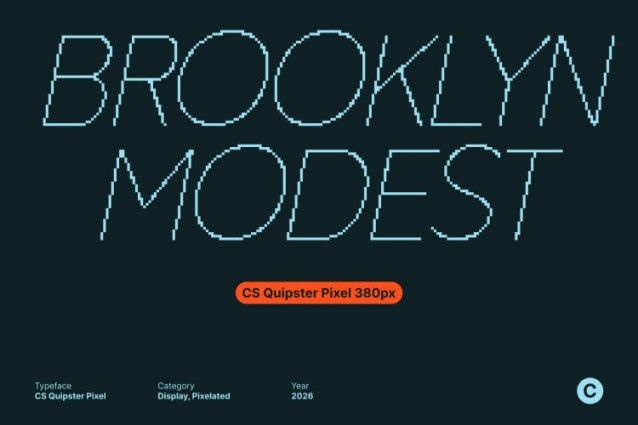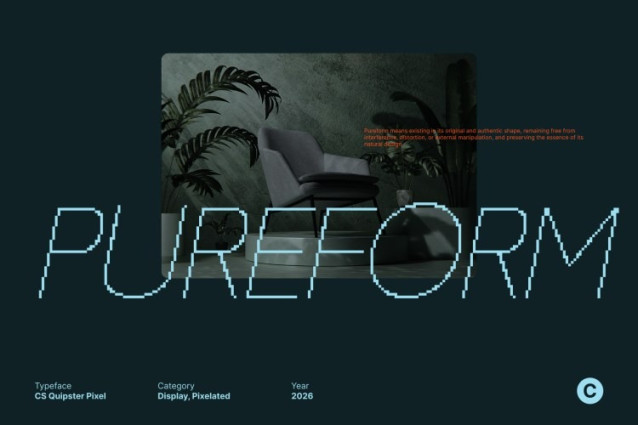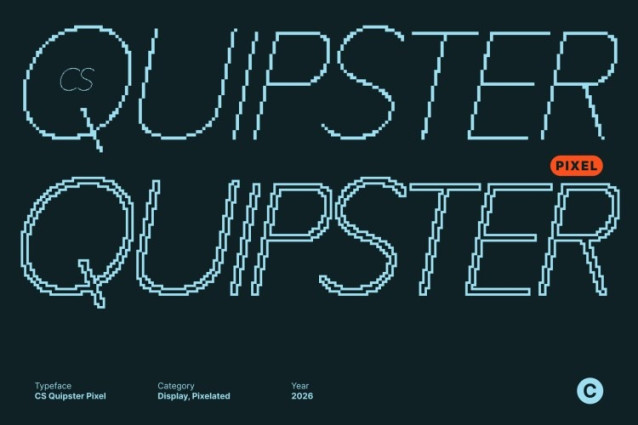
CS Quipster Pixel Font
CS Quipster Pixel Font This is a thin geometric sans serif font built on a clean pixel structure. Its slender letterforms emphasize precision, balance, and elegance, delivering a refined minimalist aesthetic that feels modern, professional, and digitally crisp.
Minimalist Expression with Sleek Pixel Clarity
Defined by fine pixel strokes and orderly geometry, this font communicates calm sophistication and visual clarity. Its light construction gives designs an airy, understated presence while preserving sharp readability, making it suitable for both formal and contemporary layouts.
Ideal for Branding, Editorial, and Digital Interfaces
This font performs beautifully in branding systems, editorial design, UI elements, posters, and modern digital graphics. Its clean pixel alignment and geometric consistency provide a professional tone, while its thin weight adds elegance to logos, headlines, and layout accents.
Balanced Structure with Subtle Personality
Rooted in geometric discipline, this font introduces individuality through proportion, spacing, and refined pixel details. This balance between structure and expression allows it to feel functional yet distinctive perfect for designers seeking a minimalist pixel font with modern personality and timeless appeal.